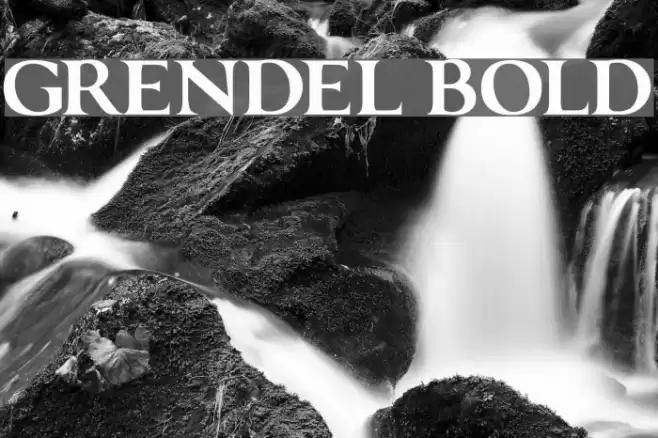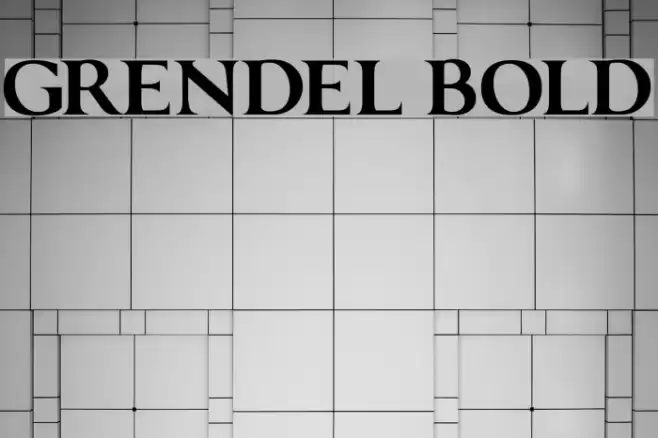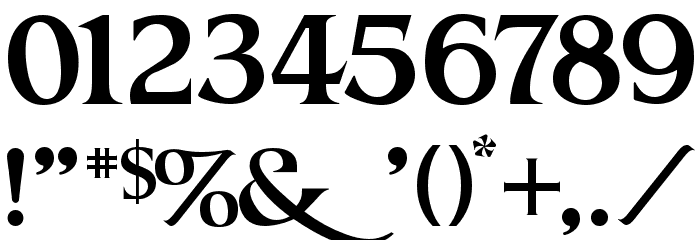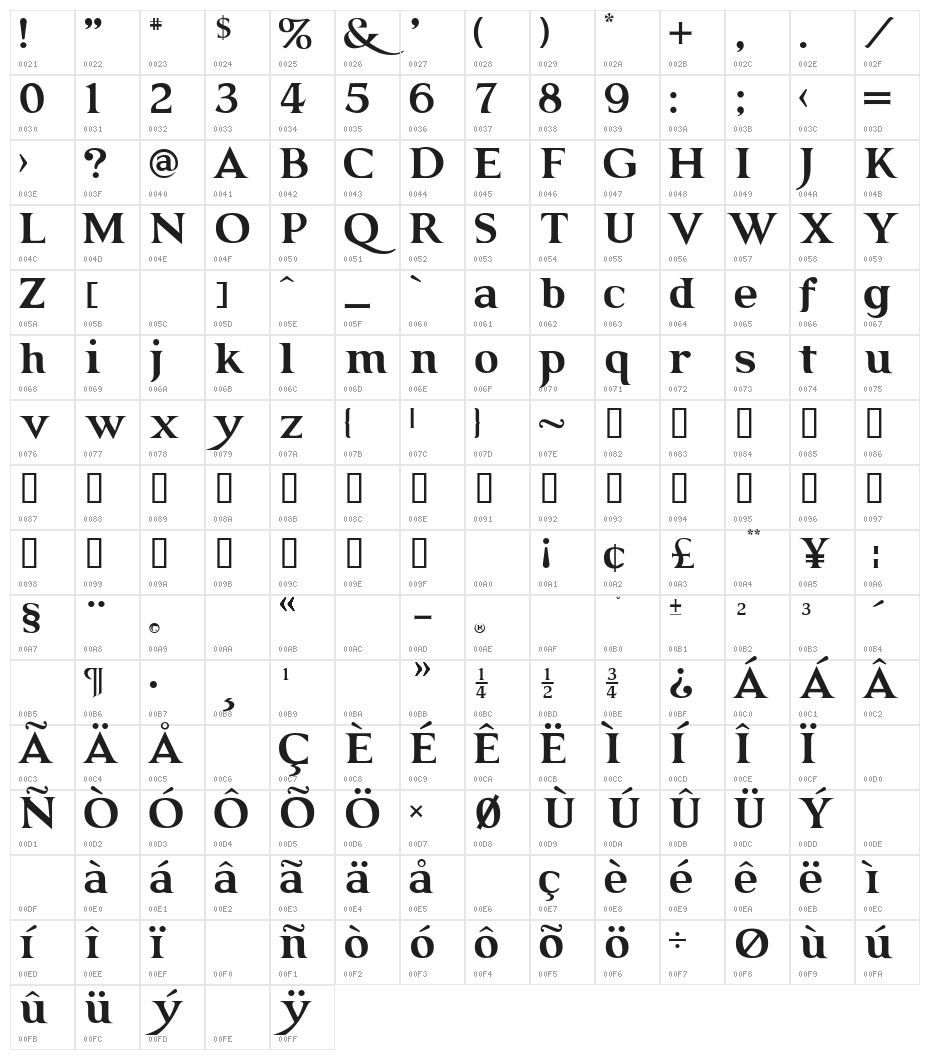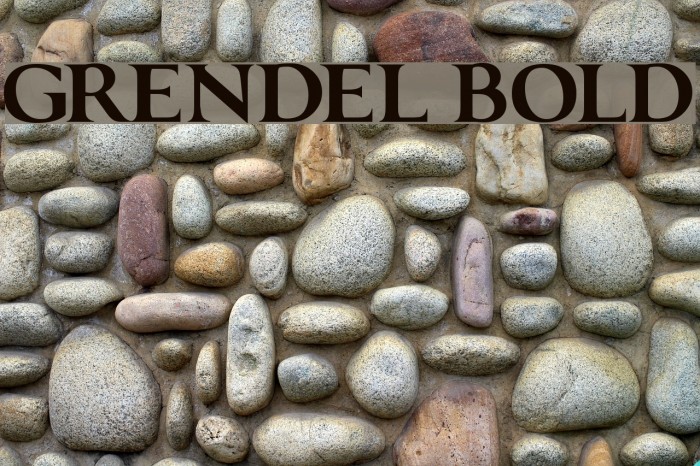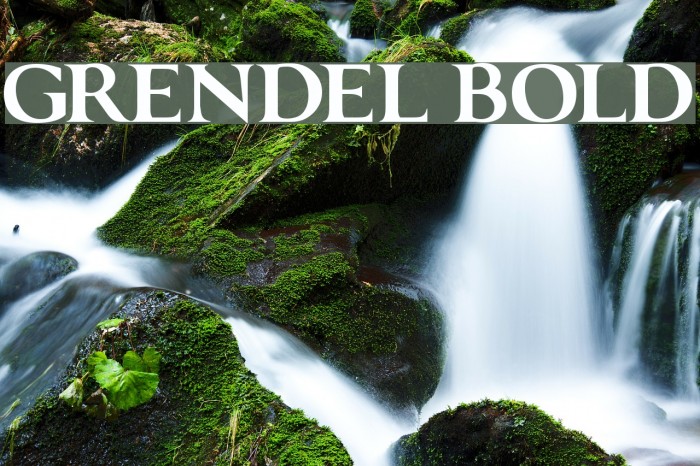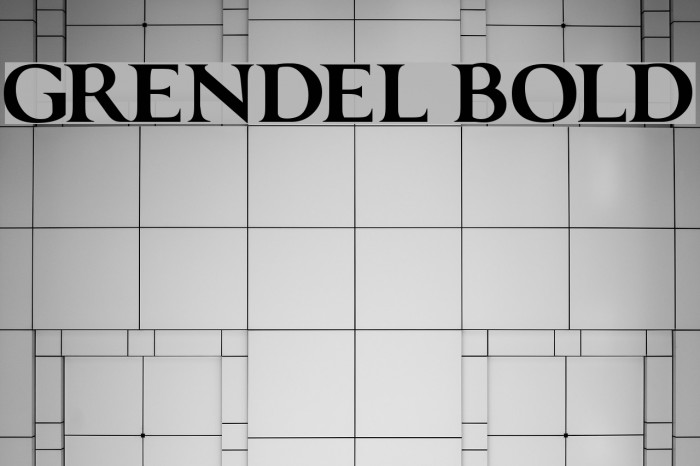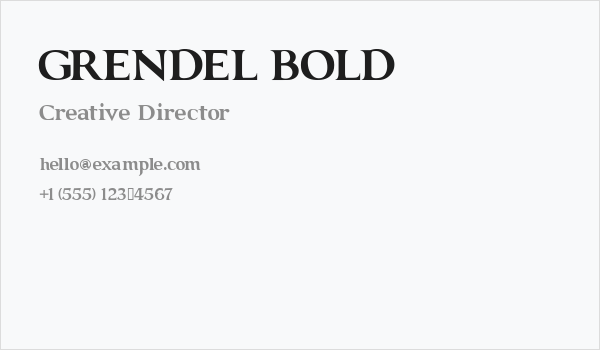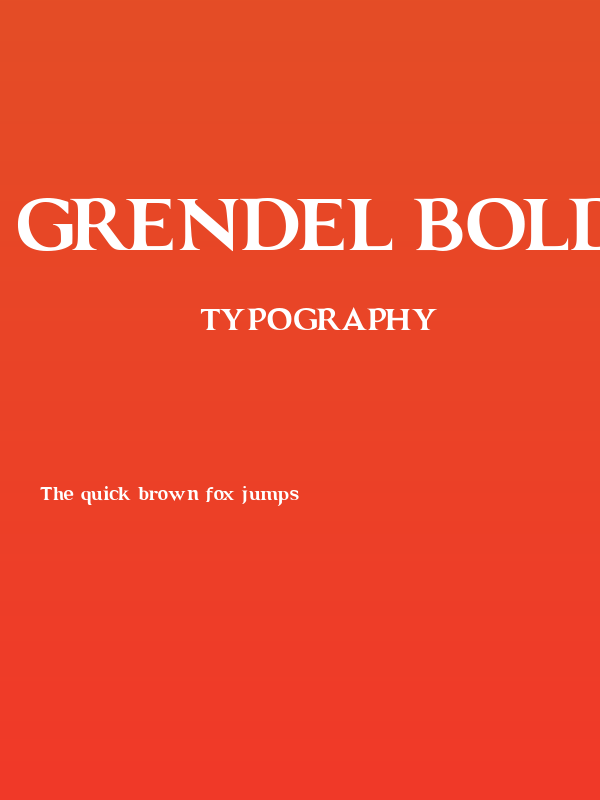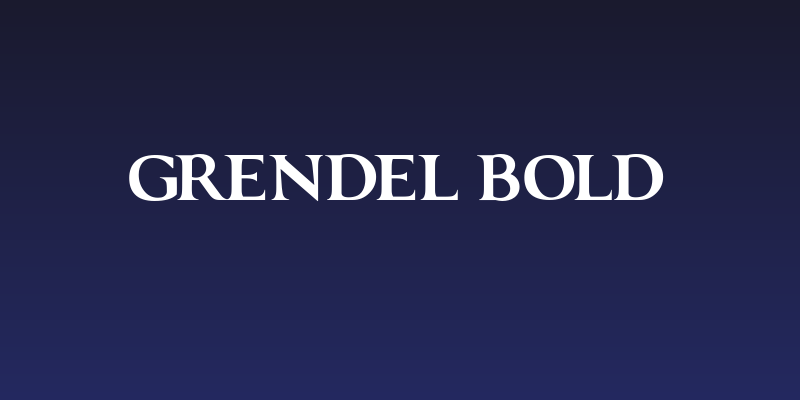
GRENDEL BOLD Font
GRENDEL BOLD Description
This font exhibits a bold and commanding presence with its strong, thick strokes and elegant serifs. The uppercase letters are particularly striking, featuring a classic serif style that conveys a sense of tradition and authority. The lowercase letters maintain a consistent weight, ensuring readability while adding a touch of sophistication. The numerals are robust and clear, making them suitable for a variety of applications. Special characters are well-defined, adding versatility to the font. Overall, this font combines traditional serif elements with a modern boldness, making it ideal for impactful designs.
A bold serif font with strong strokes and elegant serifs, perfect for impactful designs from Uncategorized fonts.
- Proposed Projects: This font is well-suited for projects that require a strong and authoritative presence, such as book covers, headlines, branding materials, and formal invitations.
- Overall Style: Classic
- Use Case: Headlines, Logos, Branding